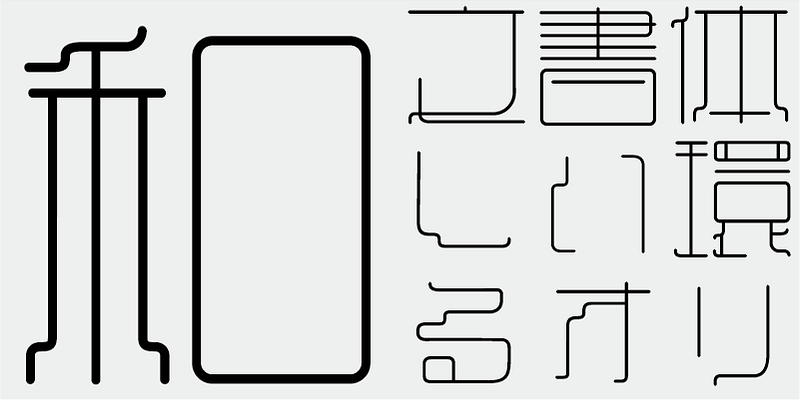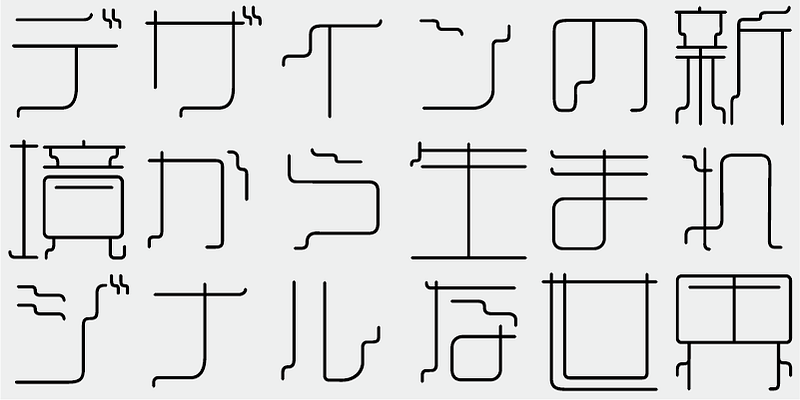
I wanted to create letter forms associated with the character used for my own name: 直. When I overlaid sketches of character elements that I designed, I found that enlarging counter spaces of characters gave the typeface a unique appearance. Also, elegance of curves has always been a part of my core philosophy of character design, and I adopted a 1/4 arc as the basic curve.